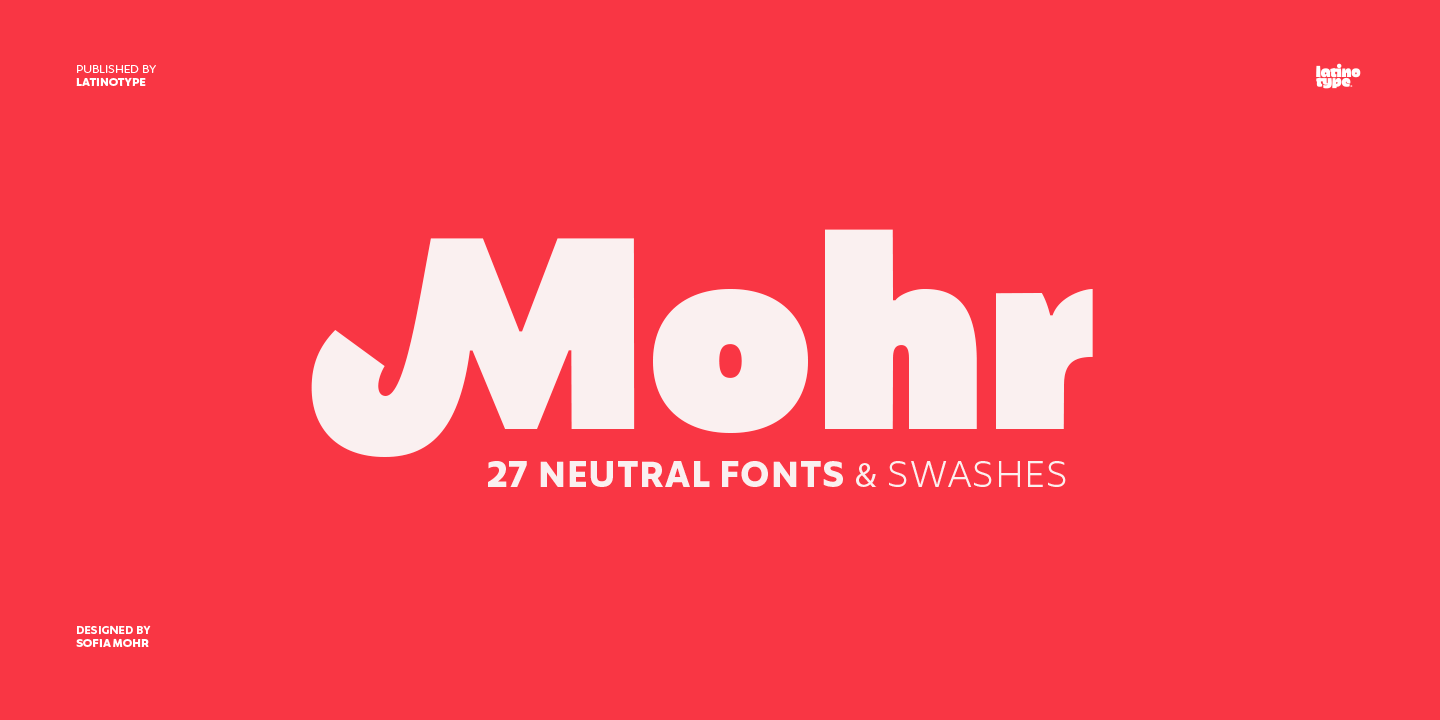
Mohr Free Download
Mohr Font Free Download
Mohr Font Free Download is a bold and contemporary sans-serif typeface designed to make your designs stand out with confidence. Its clean, geometric shapes and strong lines are perfect for branding, headlines, posters, and digital content.
Whether you’re creating impactful logos, modern websites, or eye-catching marketing materials, Mohr Font Free Download delivers clarity and professionalism that resonates across print and digital platforms.